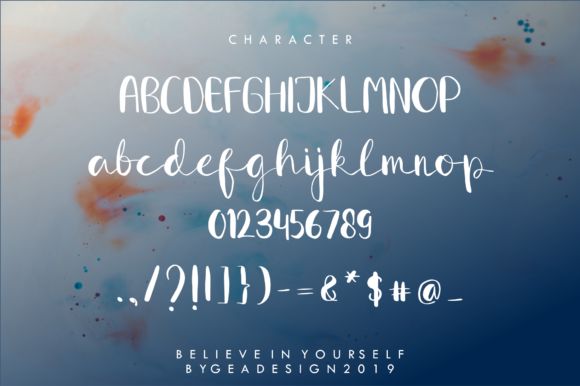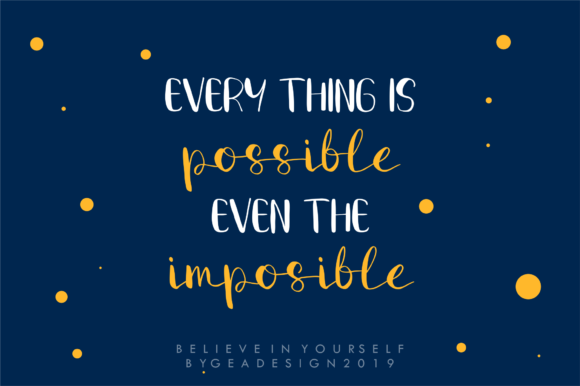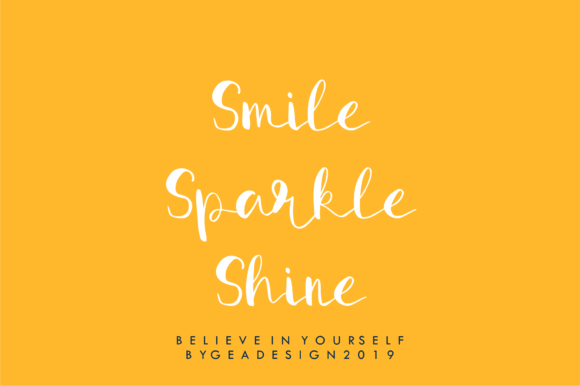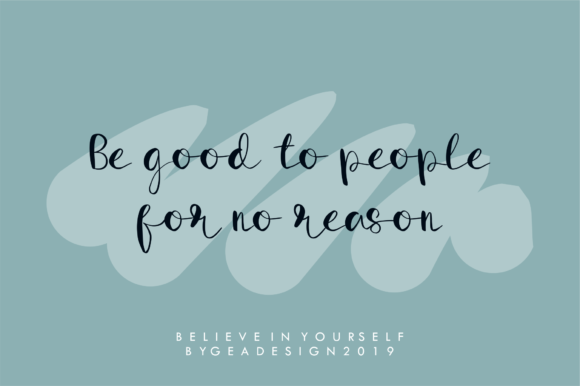
Unlock Your Creative Potential with Believe in Yourself Font
Are you tired of using the same old fonts in your design projects? Do you want to add a touch of personality and inspiration to your creations? Look no further than the Believe in Yourself font, a stunning handwritten font that is full of life and dynamic charm. In this article, we’ll explore the features and benefits of this amazing font, and show you how it can help you take your designs to the next level.
What is Believe in Yourself Font?
Believe in Yourself is a beautiful handwritten font that is designed to inspire and uplift. With its unique and dynamic letterforms, this font is perfect for adding a personal touch to any design project. Whether you’re working on a logo, poster, or social media graphic, Believe in Yourself font is sure to make your design stand out from the crowd.
Features of Believe in Yourself Font
- Handwritten with love: Believe in Yourself font is carefully crafted with a personal touch, giving it a warm and friendly feel.
- Dynamic charm: The font’s unique letterforms and varying line widths give it a lively and energetic feel that’s sure to capture attention.
- Full of life: With its playful and whimsical vibe, Believe in Yourself font is perfect for designs that need a little extra personality.
Benefits of Using Believe in Yourself Font
So why choose Believe in Yourself font for your design projects? Here are just a few benefits of using this amazing font:
- Adds personality to your designs: With its unique and handwritten feel, Believe in Yourself font can help you create designs that truly reflect your brand’s personality.
- Boosts creativity: The inspiring and uplifting vibe of this font can help stimulate your creativity and get your design juices flowing.
- Perfect for a range of projects: Whether you’re working on a logo, poster, or social media graphic, Believe in Yourself font is versatile enough to use in a variety of design projects.
- Stand out from the crowd: With its dynamic charm and unique letterforms, Believe in Yourself font can help your designs stand out in a crowded marketplace.
Who is Believe in Yourself Font for?
Believe in Yourself font is perfect for designers, crafters, and anyone looking to add a personal touch to their design projects. This font is ideal for:
- Graphic designers: Looking for a unique and inspiring font to use in their designs.
- Crafters: Creating handmade products, such as greeting cards, scrapbook pages, and other craft projects.
- Small business owners: Wanting to add a personal touch to their branding and marketing materials.
- Social media enthusiasts: Looking to create eye-catching social media graphics that stand out from the crowd.
| Font Name | Believe in Yourself Font |
| Author | geadesign |
In conclusion, Believe in Yourself font is a stunning handwritten font that is full of life and dynamic charm. With its unique letterforms and inspiring vibe, this font is perfect for designers, crafters, and anyone looking to add a personal touch to their design projects. Whether you’re working on a logo, poster, or social media graphic, Believe in Yourself font is sure to make your design stand out from the crowd. So why wait? Download Believe in Yourself font today and unlock your creative potential!